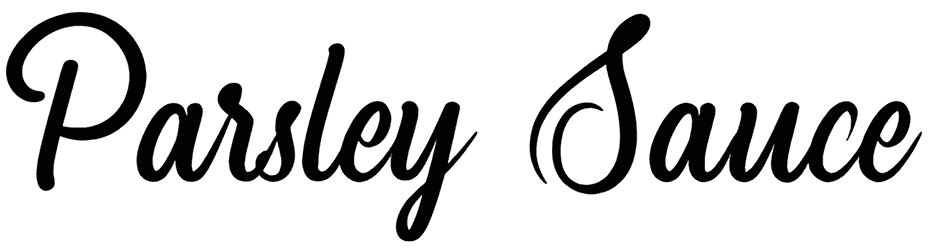
Parsley Sauce Font
Parsley Sauce is a magical script font that comes with a classic look, thus it would be suitable for a wide set of graphic content ranging from flyers, business cards, the user interface of applications, and logos, to social media posts. While this calligraphy font doesn’t fully support numbers, it still brings a sense of innovation, drama, dynamism, and personalization to your artwork.